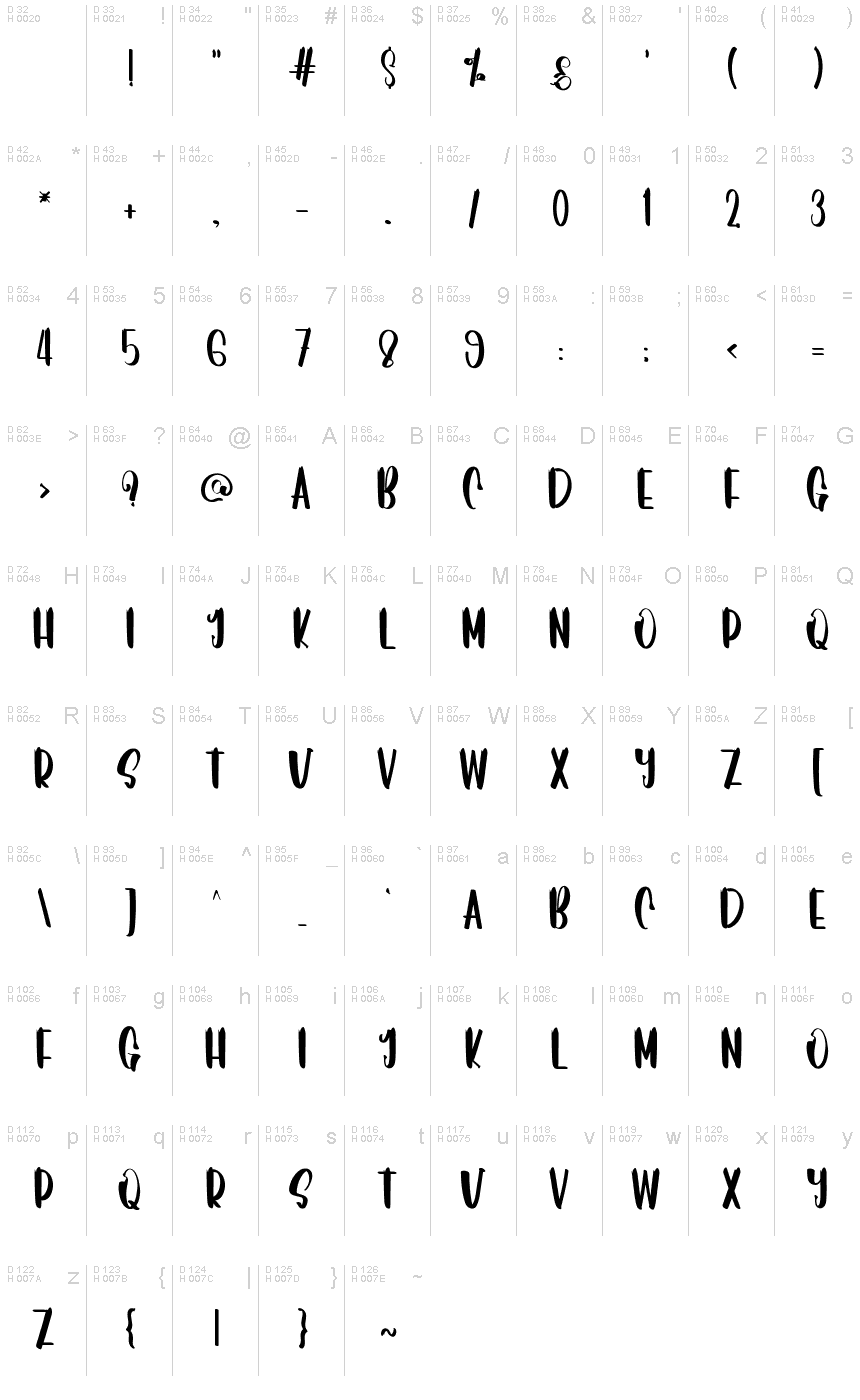
Horror Planner
Horror Planner, crafted by Inermedia Studio, is a typographic embodiment of suspense and intensity. With its semi-bold, brush style strokes that convey motion and raw energy, this font carries an extra-condensed width that adds a sense of urgency to its appearance. The brush effect resembles the swiftness of hand-painted letters, giving each character a unique and unsettling edge perfect for thrilling narratives and spine-chilling designs.
The aesthetic appeal of Horror Planner lies in its ability to marry the irregularities of brush strokes with the deliberate design choices that ensure readability and impact. It's a font that refuses to fade into the background; it demands attention with its assertive presence on any canvas.
Suitable for an array of creative projects—be it horror movie titles, chilling book covers, Halloween event posters or edgy fashion branding—Horror Planner offers designers a versatile tool to invoke emotion and establish atmosphere in visual storytelling. Its distinct style makes it an ideal choice for endeavors that require not just a font but a statement piece at the forefront of their visual identity.